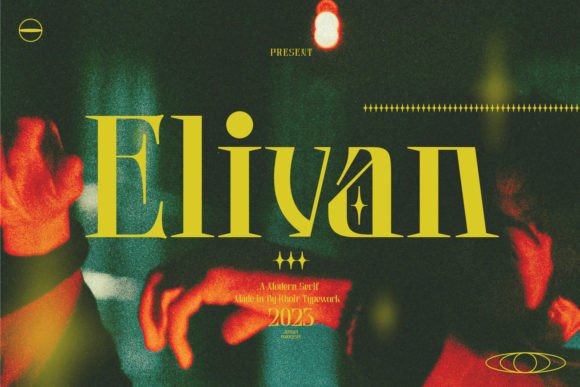
Behold, typography enthusiasts, designers, and creative visionaries! Allow me to introduce Elivan Font, the game-changer in the serif font family. As the brainchild of mrkhoir012, Elivan exudes both strength and elegance, like a poised ballerina executing a flawless performance. This font stands as a testament to the beauty of carefully crafted serifs, each stroke imbued with purpose and precision.
With Elivan as your design companion, you'll embark on a journey of visual artistry, transforming mundane text into captivating narratives. This versatile font effortlessly adapts to your creative whims, whether you seek to craft logos that command attention, branding that resonates with audiences, or posters that ignite imaginations. Its fluidity extends to fashion and merchandise, adding a touch of distinction to your designs.
Elivan's inherent charm lies in its ability to elevate your creations, imbuing them with a timeless quality that transcends trends. Let your designs dance effortlessly between the digital realm and the printed page, carrying your message across platforms with unwavering grace. This is a font that invites you to explore, experiment, and unleash your boundless creativity.
Choose Elivan and witness your design alchemy come to life. Its crisp lines and graceful curves beckon you to weave intricate tapestries of visual delight. Embrace the power of typography and unlock the potential of design that speaks volumes. Elevate your projects to new heights with Elivan, the font that captures hearts and ignites imaginations. Dive into a world where fonts come alive and stories unfold with every stroke.